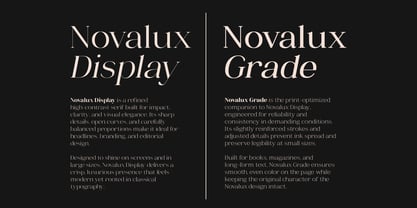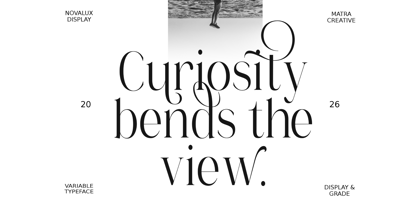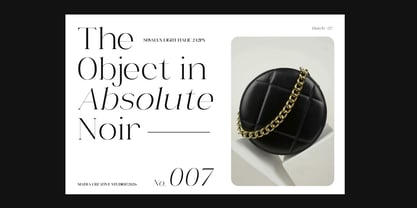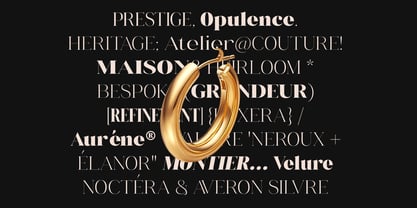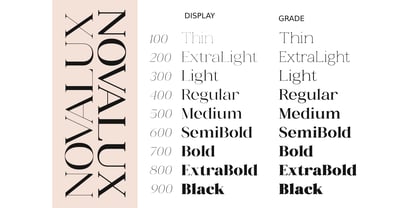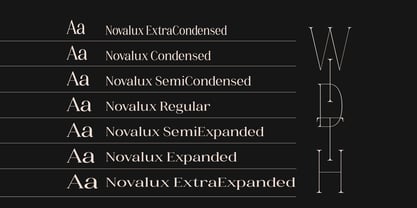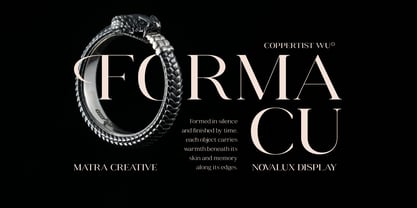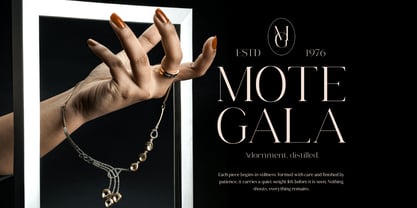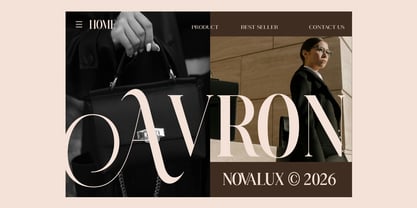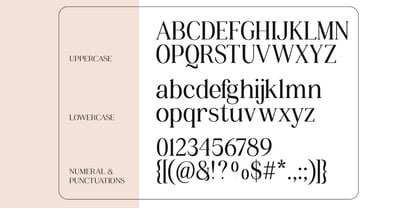
Novalux
The Novalux Font Family was designed by May Adifarzan muis and published by Matra Creative. Novalux contains 128 styles and family package options. More about this family
Novalux is a variable luxury serif typeface that combines timeless elegance with modern versatility. Featuring 128 styles across Roman and Italics and a two‑axis variable system, it offers designers complete freedom to shape refined visuals. From bold, glamorous headlines to sophisticated editorial layouts, Novalux adapts seamlessly to any creative context. Its delicate serifs and luxurious detailing evoke exclusivity and prestige, making it the perfect choice for logos, magazines, packaging, and high‑end branding projects. More than just a typeface, Novalux is a design tool crafted to elevate every project with a touch of luxury.